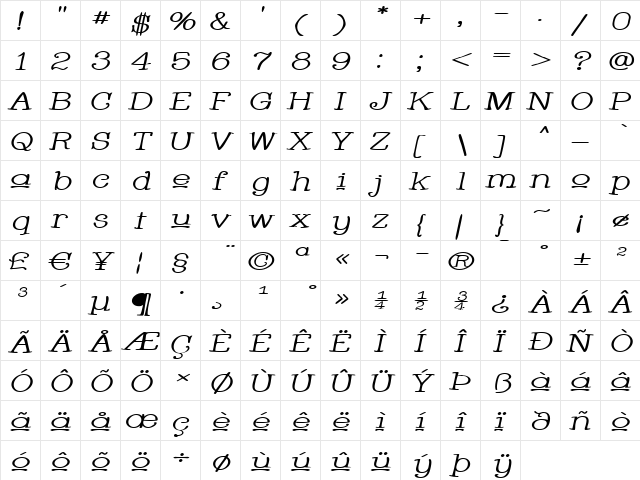
Whackadoo Upper Wide Italic
Design Context for Whackadoo Upper Wide Typeface
Whackadoo Upper Wide is a composed and adaptable typeface that performs quietly and consistently across a wide range of design contexts. The dynamic lean of this cut emphasises speed and emphasis in any layout.
Pro Tip: Use Whackadoo Upper Wide for emphasis, pull quotes, and subheadings where its slanted energy can add rhythm to the layout.